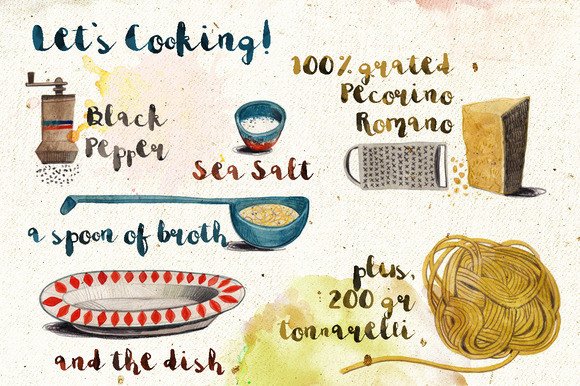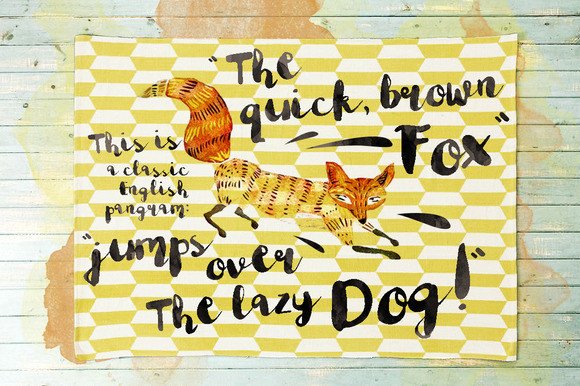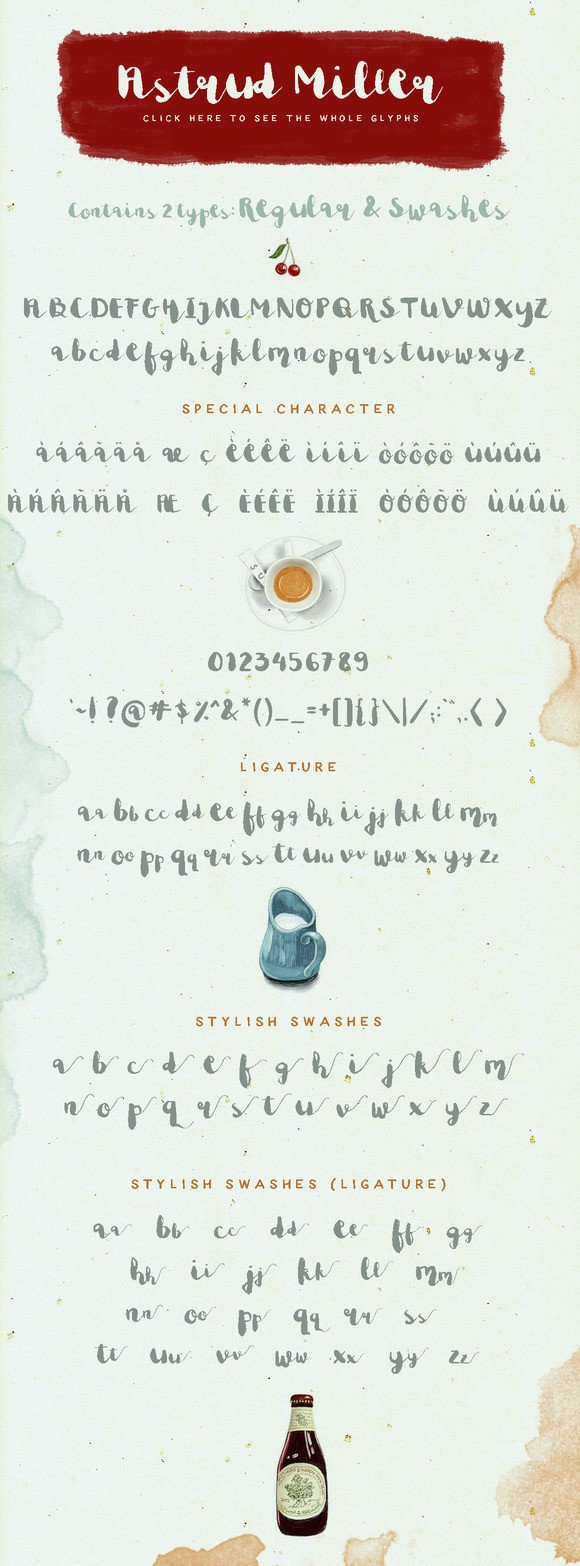
The Perfect Brush for Your Next Creative Project
As a designer, have you ever been stuck on a project, searching for the perfect font to bring your vision to life? You’ve browsed through countless options, trying to find that one special something that makes your design pop. For me, that moment came when I discovered the Astrud Miller Font. Its unique blend of bulkiness and elegance immediately caught my eye, and I knew I had to learn more.
Astrud Miller Font is a versatile, feminine brush-type font that’s perfect for a variety of design projects, from wedding invitations to birthday cards and greetings. With both regular and swashes styles available, you can easily mix and match to create a look that’s uniquely yours. Whether you’re a seasoned designer or just starting out, Astrud Miller Font is a valuable addition to your toolkit, offering endless possibilities for creative expression.
Astrud Miller Font Key Features
• Font Family: Astrud Miller Font is a modern script font designed by Miller Font, which offers a unique and elegant look for various design projects.
• Unique Characteristics: Astrud Miller Font features connected letters, swashes, and flourishes, giving it a distinctive and artistic look that adds a touch of elegance to any design.
Astrud Miller Font Review
I recently had the chance to work with the Astrud Miller Font, and I have to say, it’s a unique addition to any design project. ✨ One of the things that works well is its versatility – it’s suitable for a wide range of design applications, from titles and headings to body text and even logos.
• ✨ Versatile font style that works well for various design applications
• ✨ Supports both serif and sans-serif design styles
• ✨ Easy to read, even in smaller font sizes
However, I did encounter some limitations with the font. ⚠️ For one, the Astrud Miller Font lacks a clear, consistent tone or style. While this can be beneficial in some cases, it can also make it difficult to create a cohesive design aesthetic.
• ⚠️ Lacks a clear, consistent tone or style
• ⚠️ Can be difficult to pair with other fonts or design elements
• ⚠️ Limited character set and language support
Overall, the Astrud Miller Font is a solid choice for designers looking for a unique, versatile font. While it may not be perfect, it’s definitely worth considering for your next design project.
Tips for Getting the Most Out of the Astrud Miller Font
Use the Astrud Miller font for creative and artistic projects, such as invitations, posters, and social media graphics.
Pair the font with bold and bright colors to create a striking visual effect.
Experiment with different font sizes and styles to add depth and interest to your design.
The Astrud Miller font is commonly used for:
Artistic and creative projects
Social media graphics and advertising
Alternatives to Astrud Miller Font
The Astrud Miller Font is a popular script font used for various design projects. However, designers may look for alternatives that offer similar characteristics or unique features. Here are three alternatives to consider:
Carolyna Pro is a elegant script font that works well for fashion, beauty, and lifestyle designs. It features a high-end feel and is suitable for titles, logos, and packaging. Compared to Astrud Miller Font, Carolyna Pro has a more refined and sophisticated look, making it ideal for luxury brands.
Great Vibes is a modern script font that offers a fun and playful vibe. It’s perfect for designs that require a casual, yet stylish feel. In comparison to Astrud Miller Font, Great Vibes has a more relaxed and informal tone, making it suitable for social media graphics, advertisements, and event invitations.